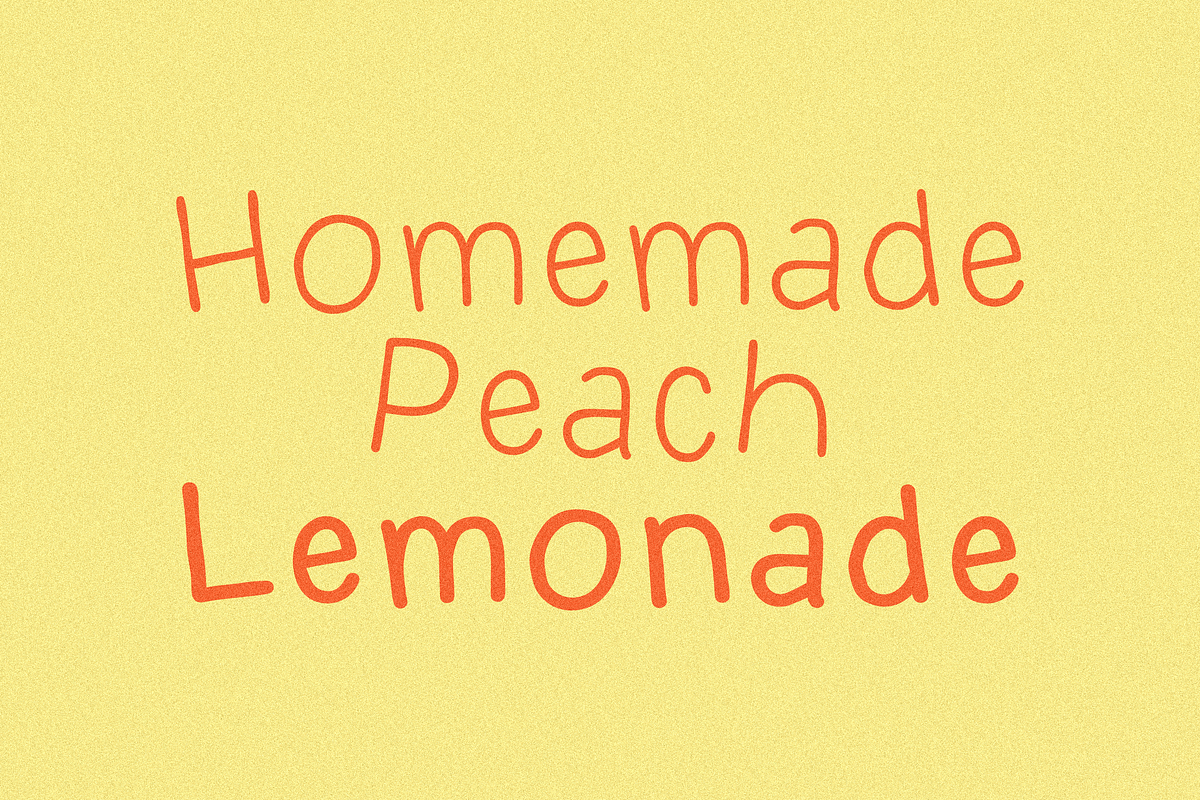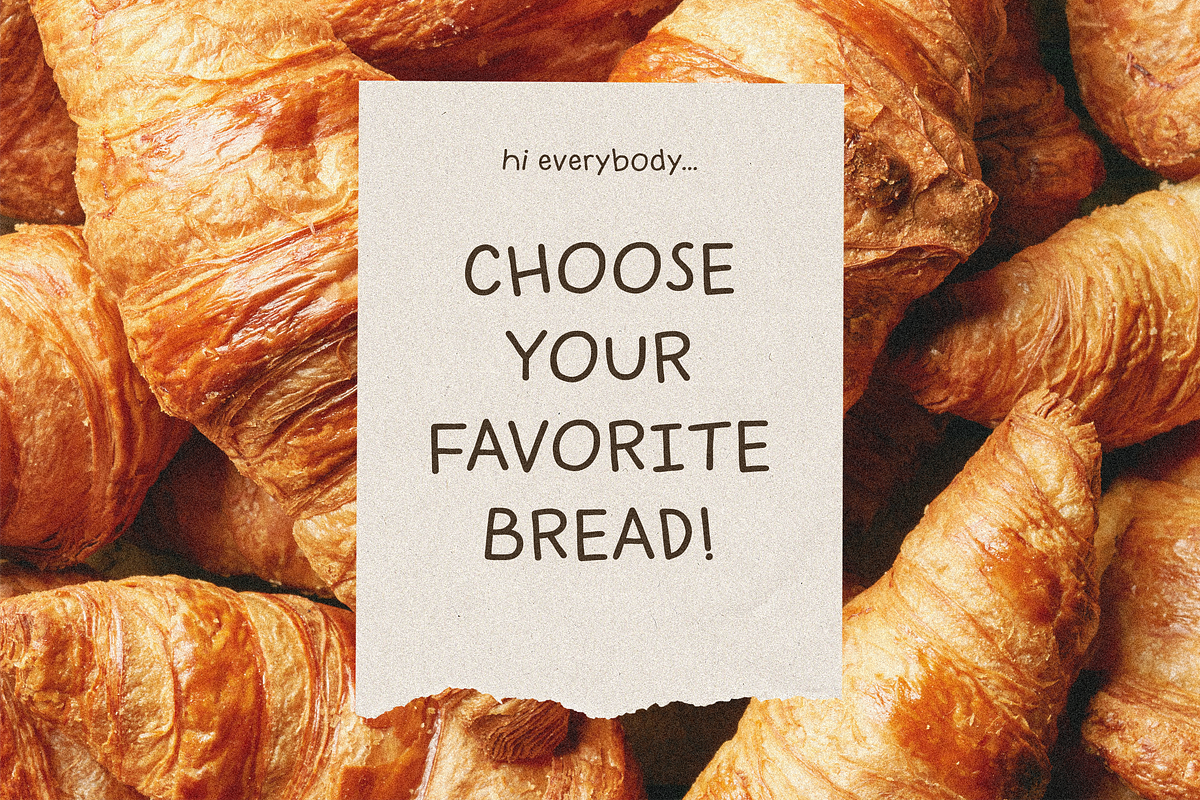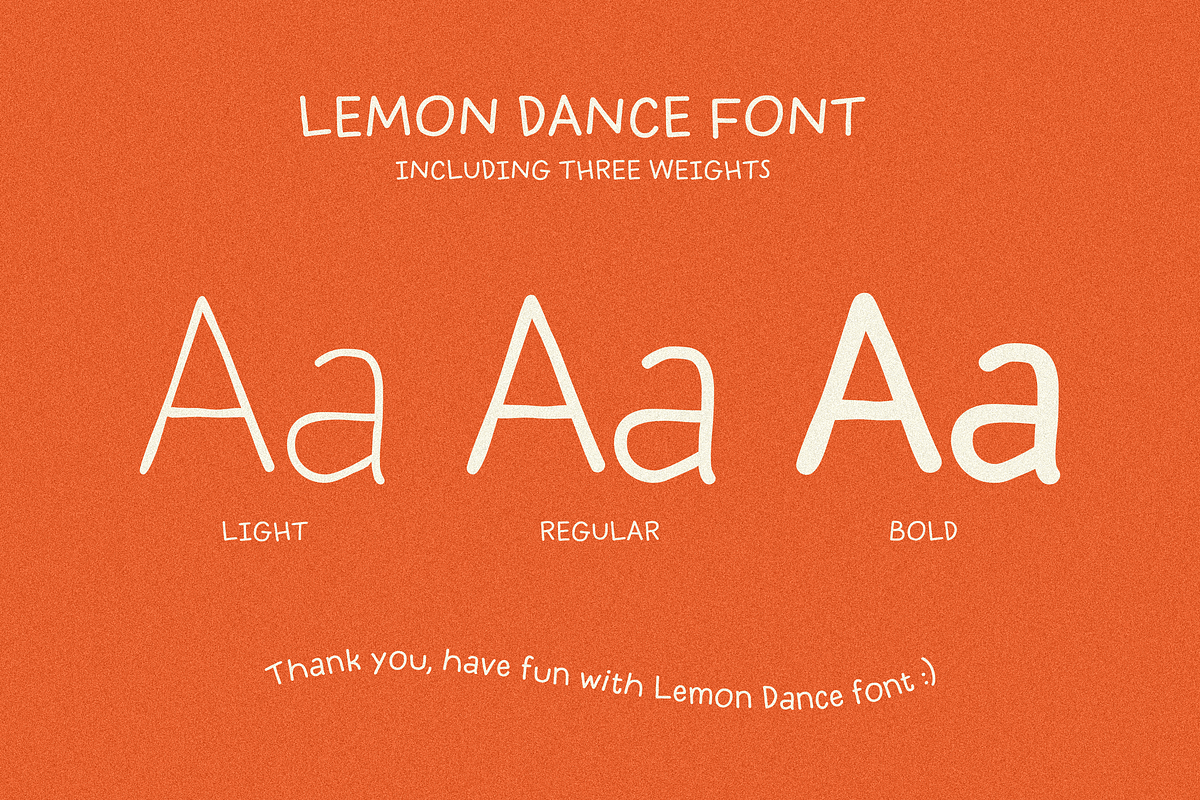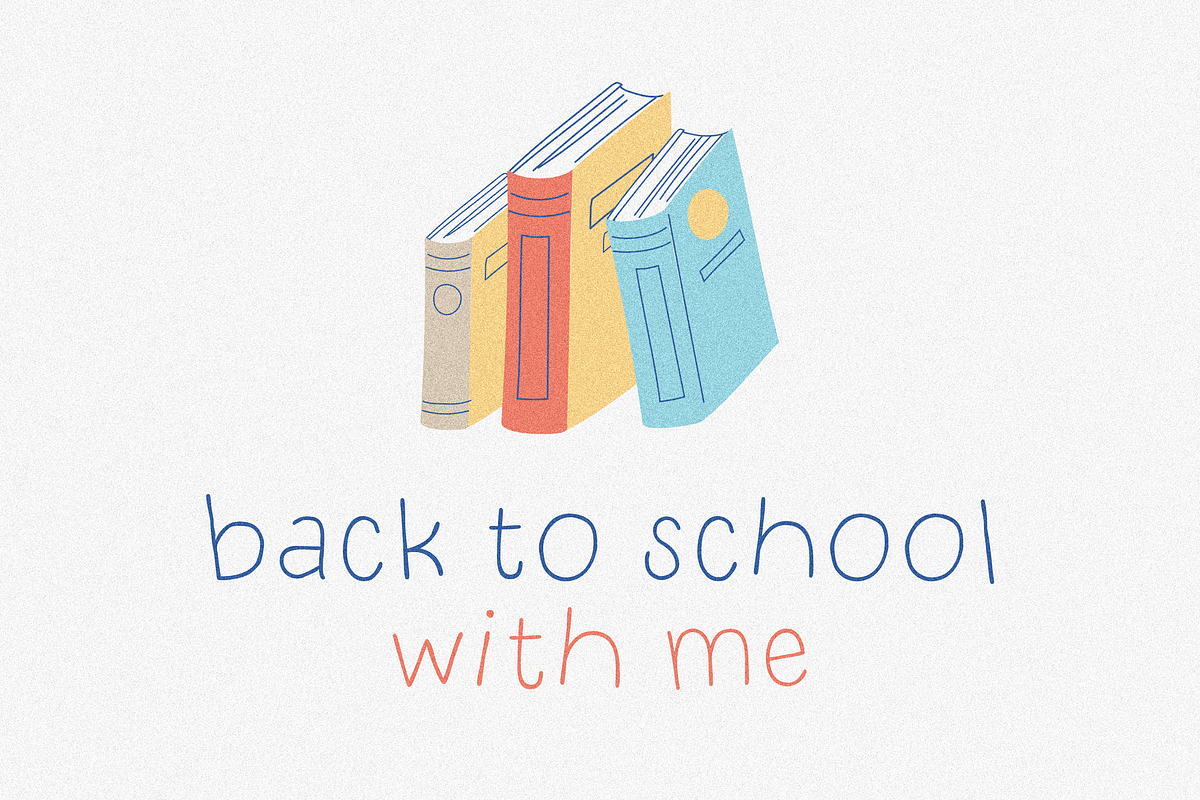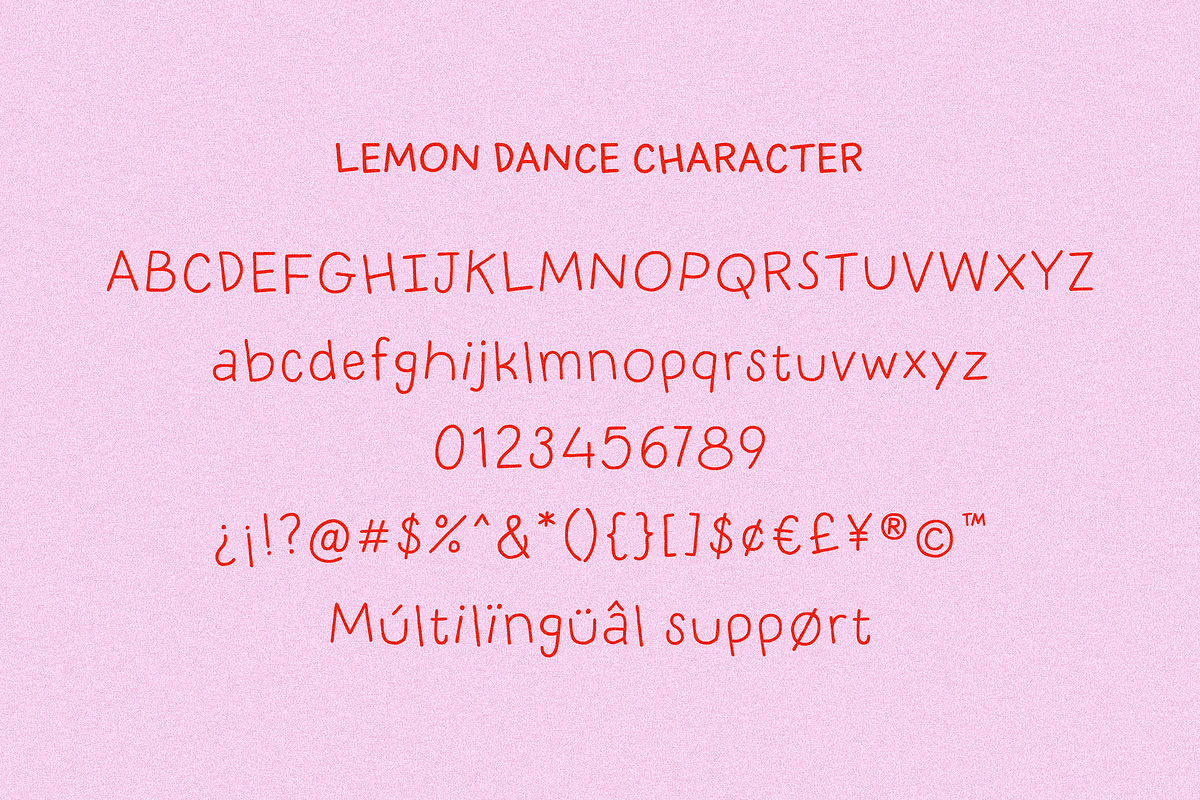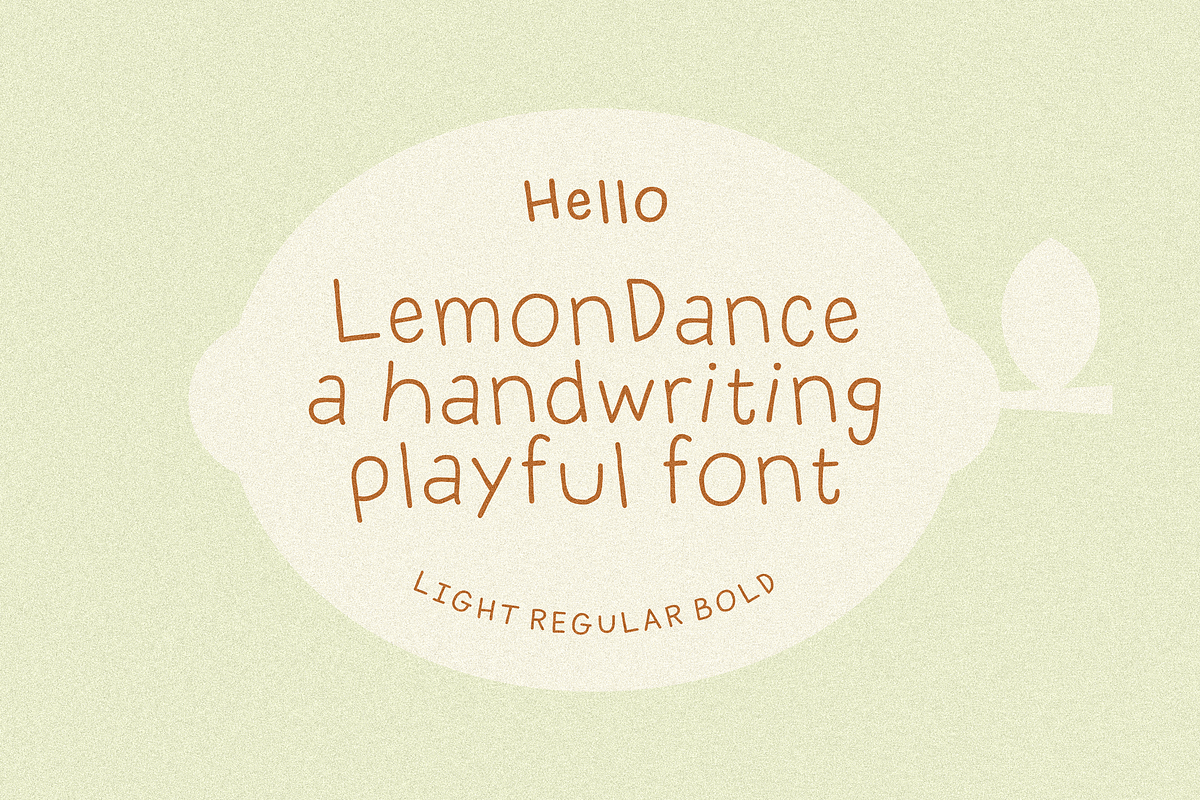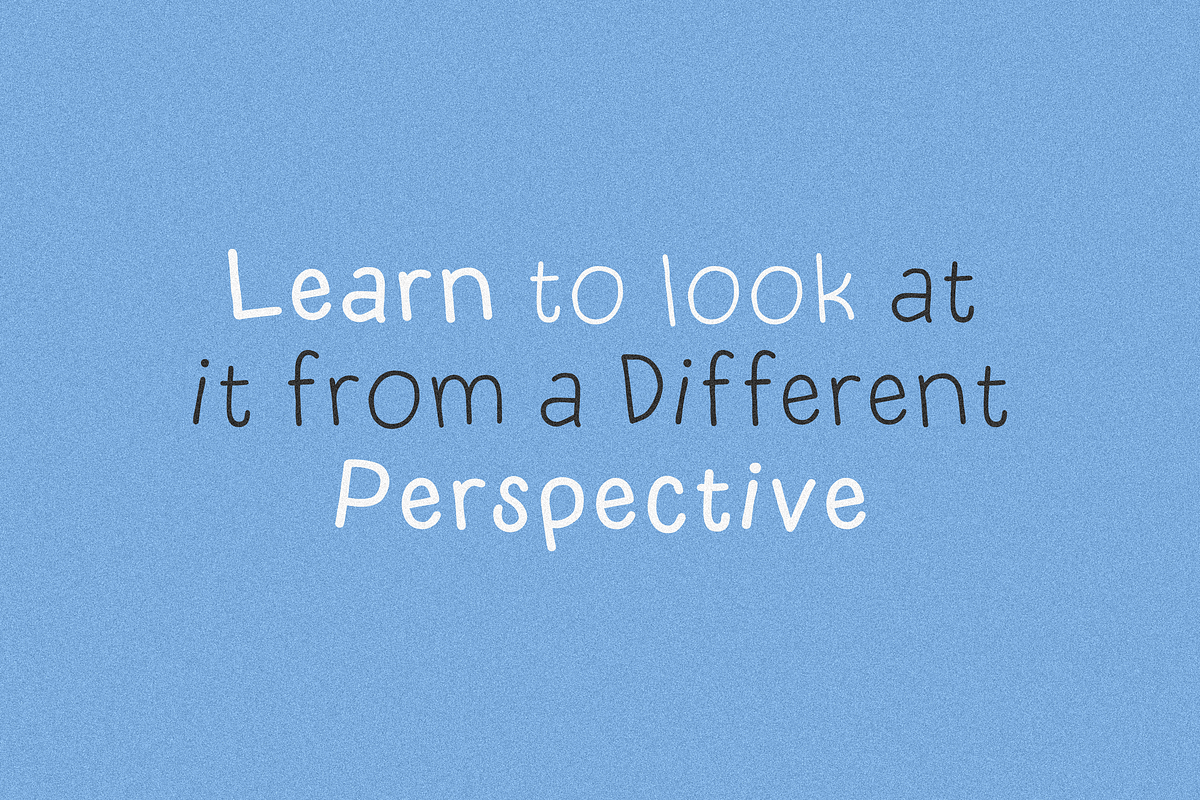
Lemon Dance Handwriting
Lemon Dance Handwriting is the perfect blend of playfulness and charm, making it an ideal choice for anyone looking to add a touch of whimsy to their projects. This monoline handwriting font captures the essence of childhood joy, making it especially suitable for branding, social media, and eye-catching posters. With its quirky character set and a generous ~230+ glyphs, Lemon Dance brings a unique flair to logos and taglines, ensuring you stand out in a crowded market. It’s not just a font; it’s an invitation to unleash creativity and warmth in your designs.
This versatile typeface features ligatures, stylistic alternates, and swashes that allow for a customized touch in any setting. Available in multiple file formats, including TTF, OTF, WOFF, and WOFF2, Lemon Dance Handwriting is designed for seamless integration into your workflow, whether you’re crafting a fun school project, a children’s book cover, or engaging social media posts. Its multilingual support ensures that your playful message can reach a wider audience, making it an essential addition to your design toolkit.